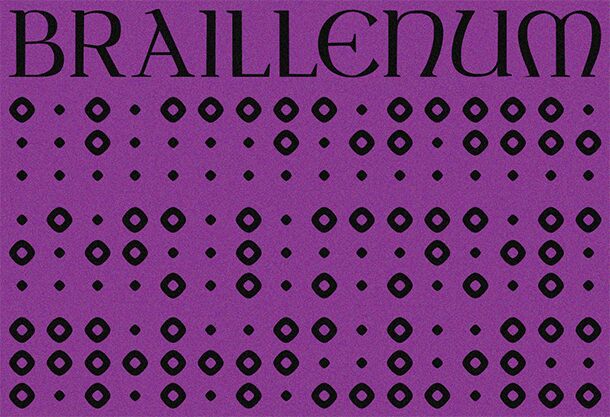
Braillenum font family by Vladimir Nikolic has 4 font styles. This is a new elegant serif typeface with an ultra-modern and minimally artistic design. It’s a refined, distinctive, and sophisticated font for contemporary applications in luxury branding, high-fashion posters, and decorative print design.
Create sophisticated, contemporary designs with Braillenum for branding, logo design, packaging, invitations, and a wide range of print and digital applications. More possible uses include luxury branding, fashion design, advertising, posters, pamphlets, business cards, stuffing, social media posts, and promotional images.